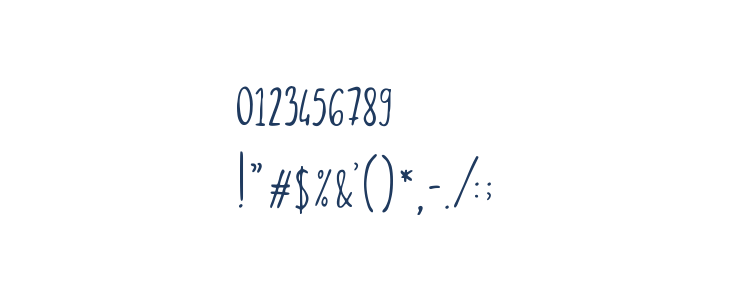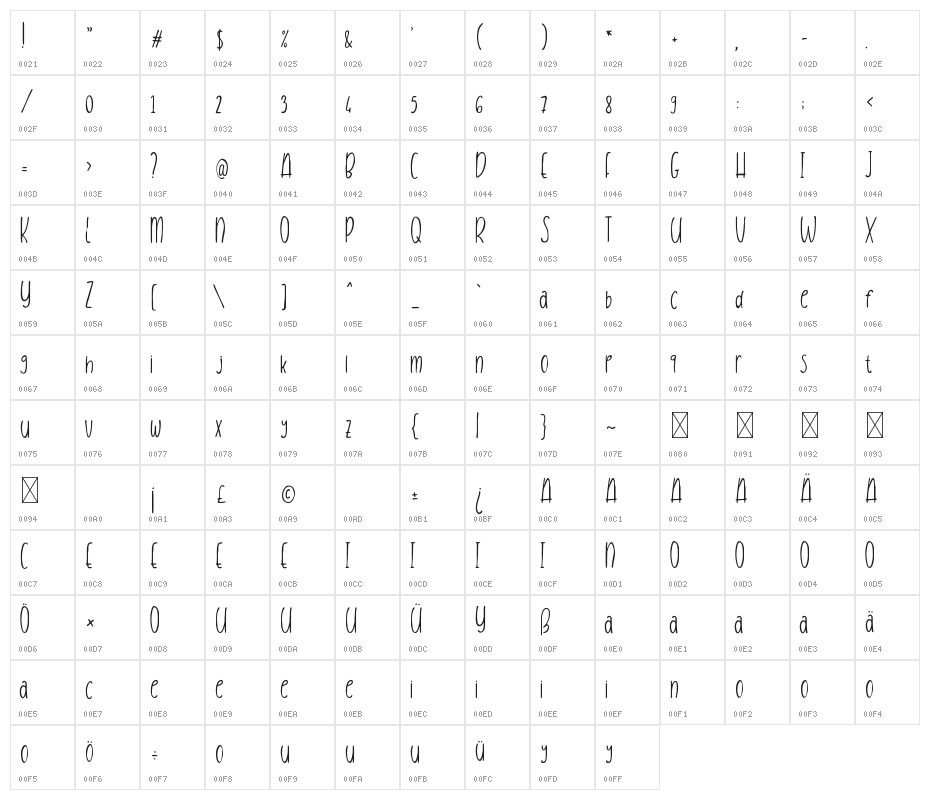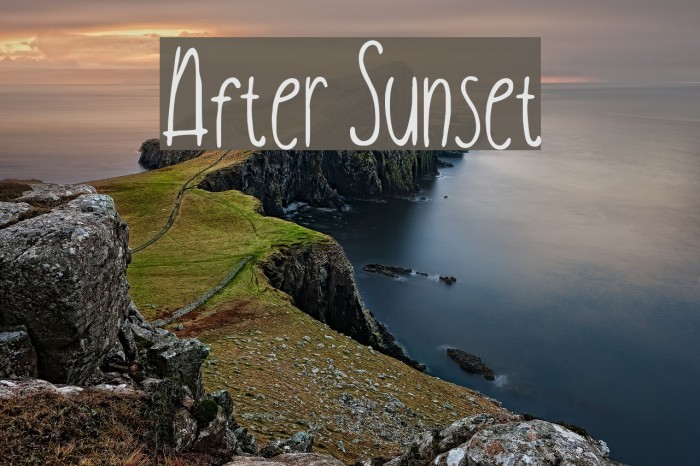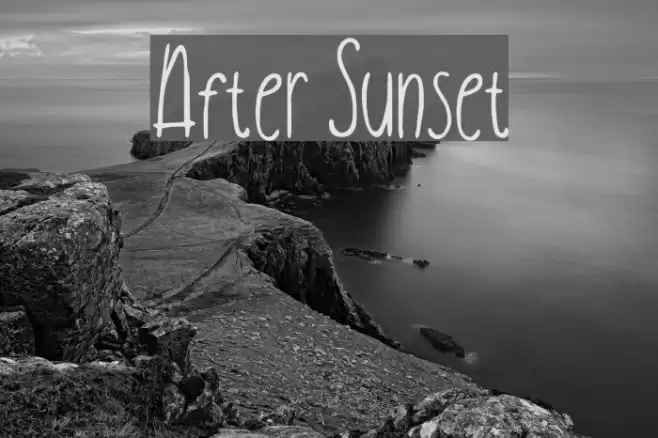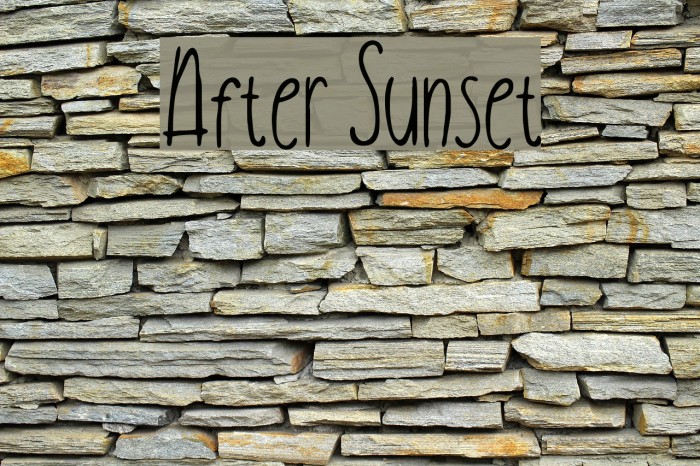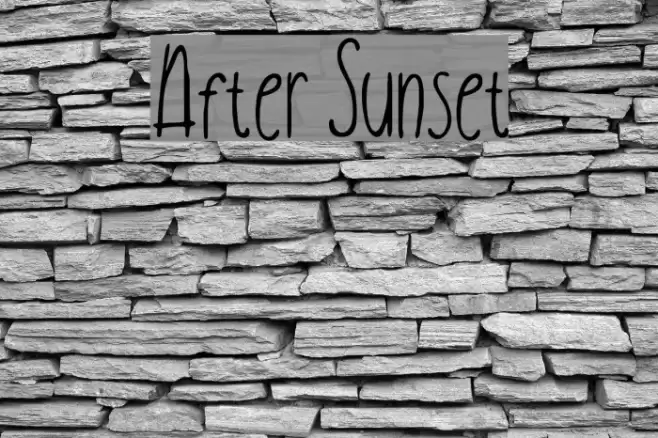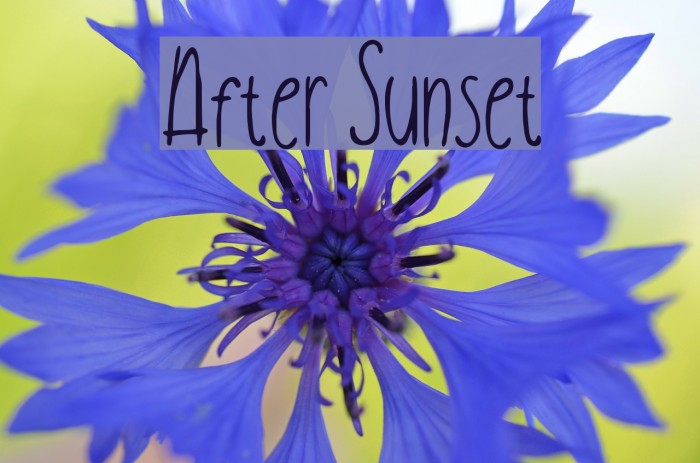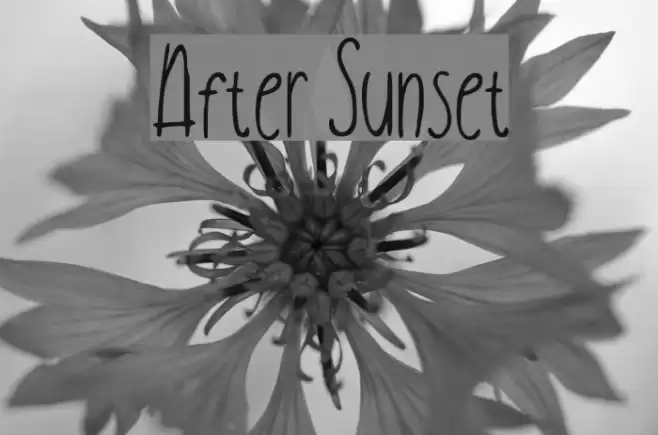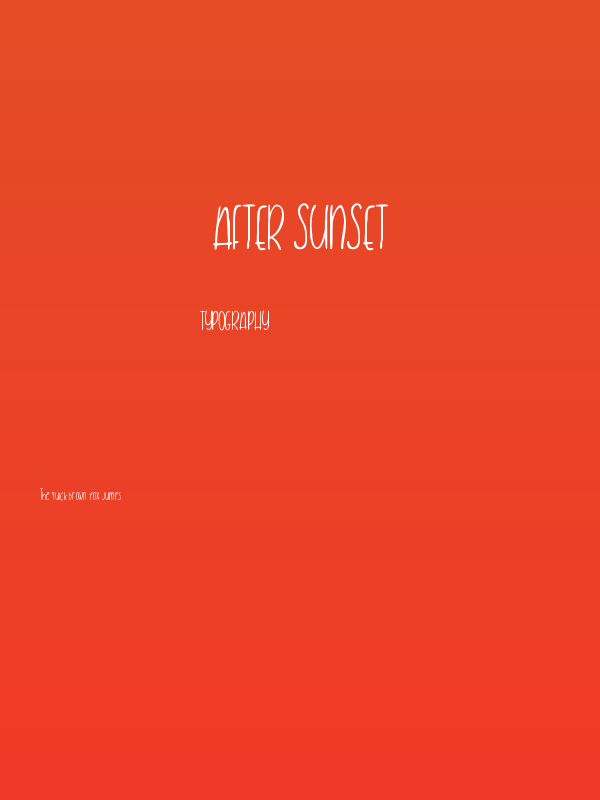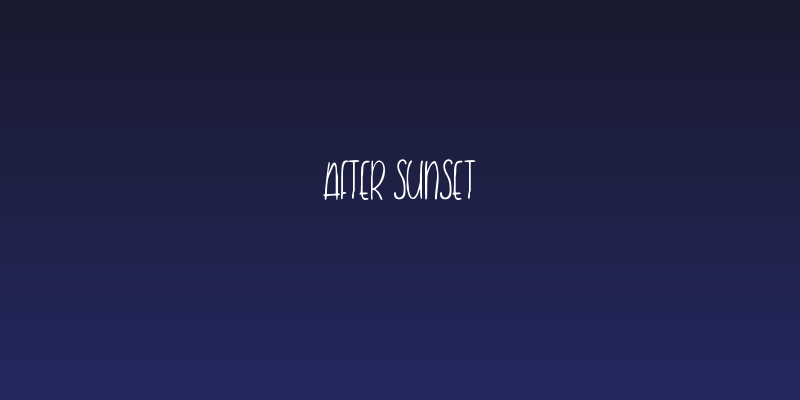
After Sunset Font
After Sunset Description
This font features a playful and whimsical style with tall, narrow characters that have a handwritten feel. The strokes are smooth and slightly irregular, giving it a casual and friendly appearance. The uppercase letters are elongated, while the lowercase letters maintain a consistent height, adding to the quirky charm. Numbers and special characters follow the same playful design, making it versatile for various uses. The overall look is informal and approachable, ideal for projects that require a personal touch.